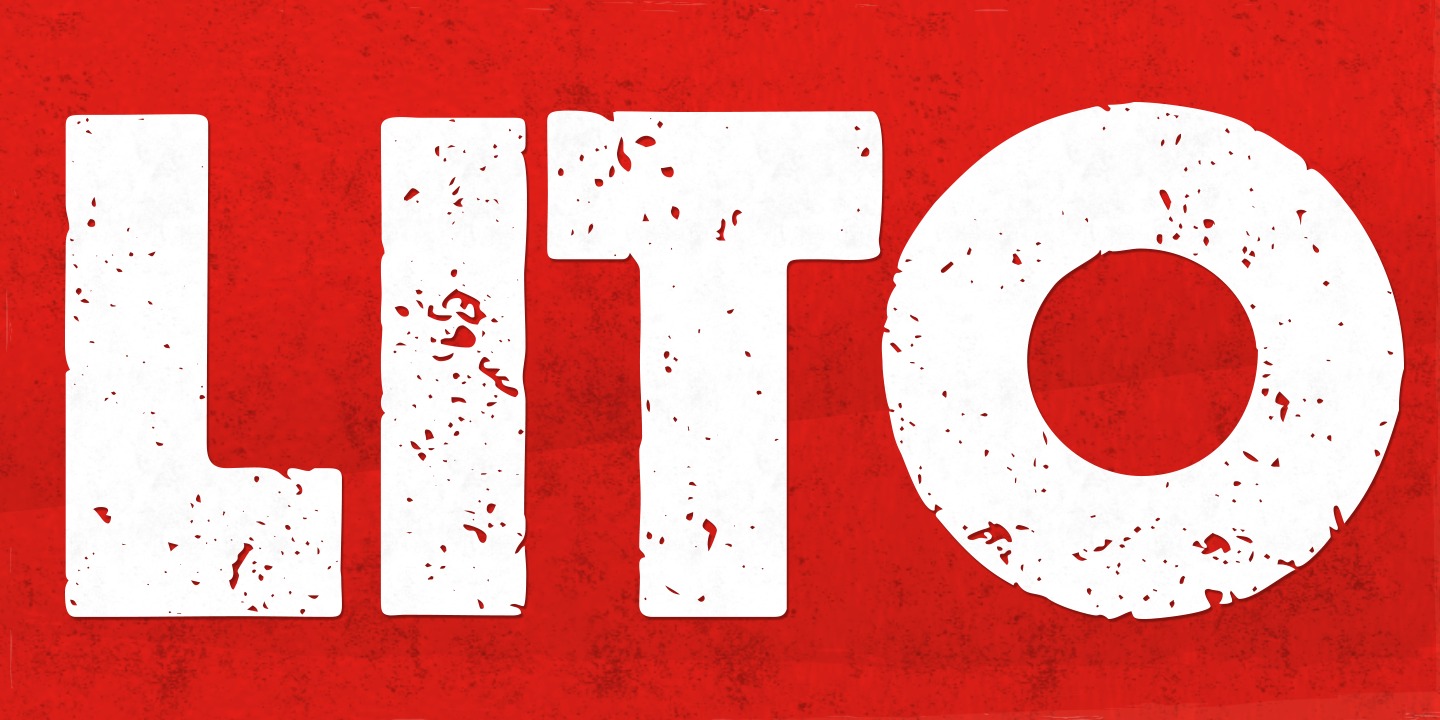
Lito – Vintage Font Family
Lito – Vintage Font Family is a distinctive display typeface designed by Mateusz Machalski, crafted with a strong influence from traditional letterpress printing. This font family features a collection of six unique styles, each reflecting a handcrafted, textured aesthetic that brings depth and character to any design.
With its bold, imperfect edges and vintage-inspired forms, Lito captures the raw beauty of analog typography. From clean and refined to rough and stencil variations, the typeface offers versatility for a wide range of creative projects.
Perfect for posters, branding, packaging, and editorial design, Lito stands out with its expressive personality and strong visual impact. It’s an excellent choice for designers looking to add a retro, tactile feel to their work while maintaining a modern and artistic edge.